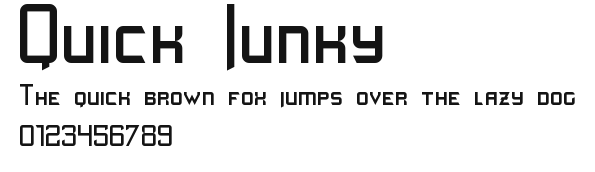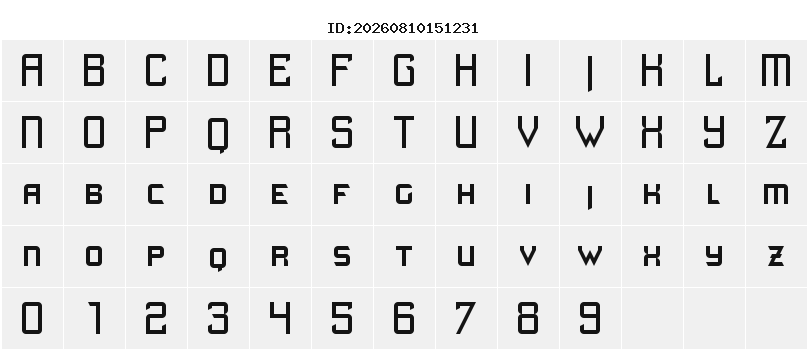
• Font Name: Quick Junky
• Full Font Name: Quick Junky Regular
• Designer: leniklenik
• Description: “Quick Junky” was built with FontStruct
About Quick Junky.ttf
Quick Junky.ttf is a modern, elegant sans-serif font designed for ultimate readability and visual harmony. Perfect for branding, headlines, web design, and print materials.